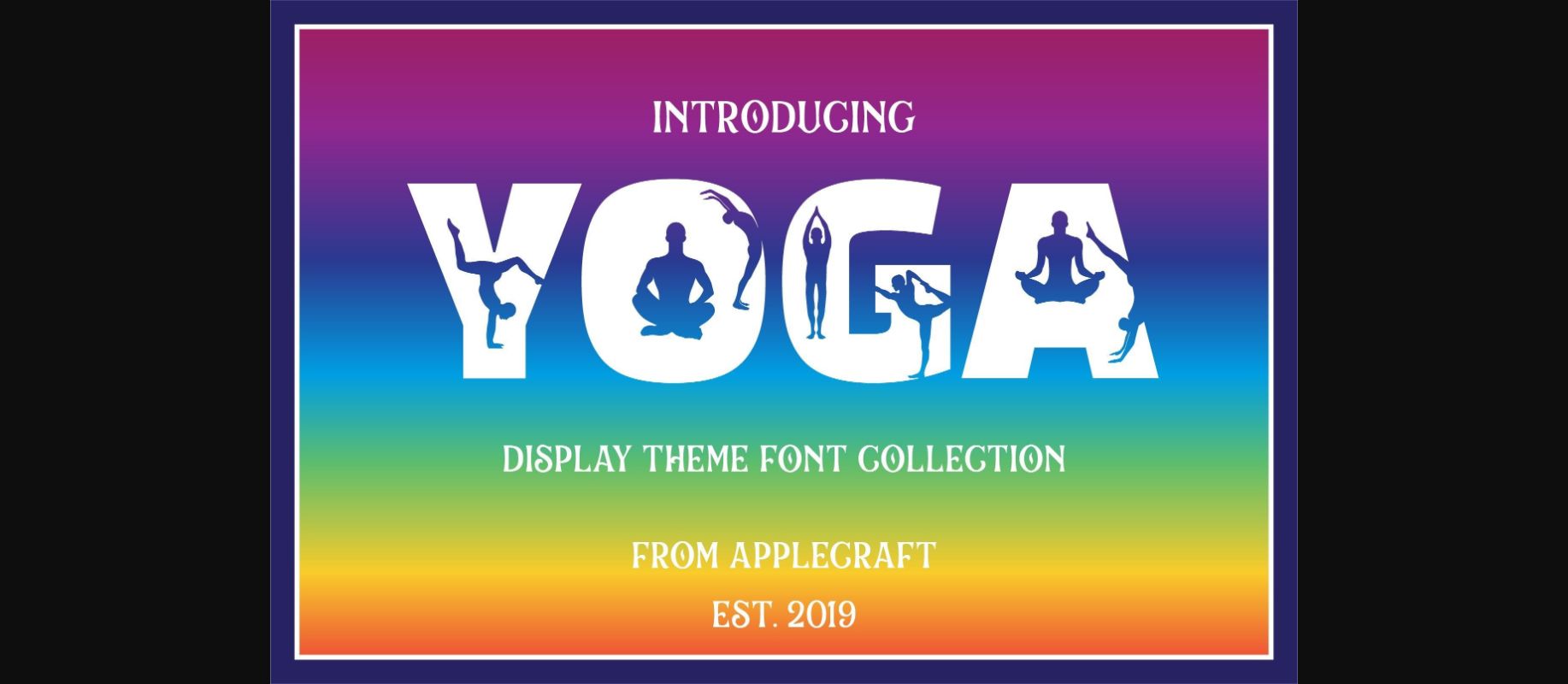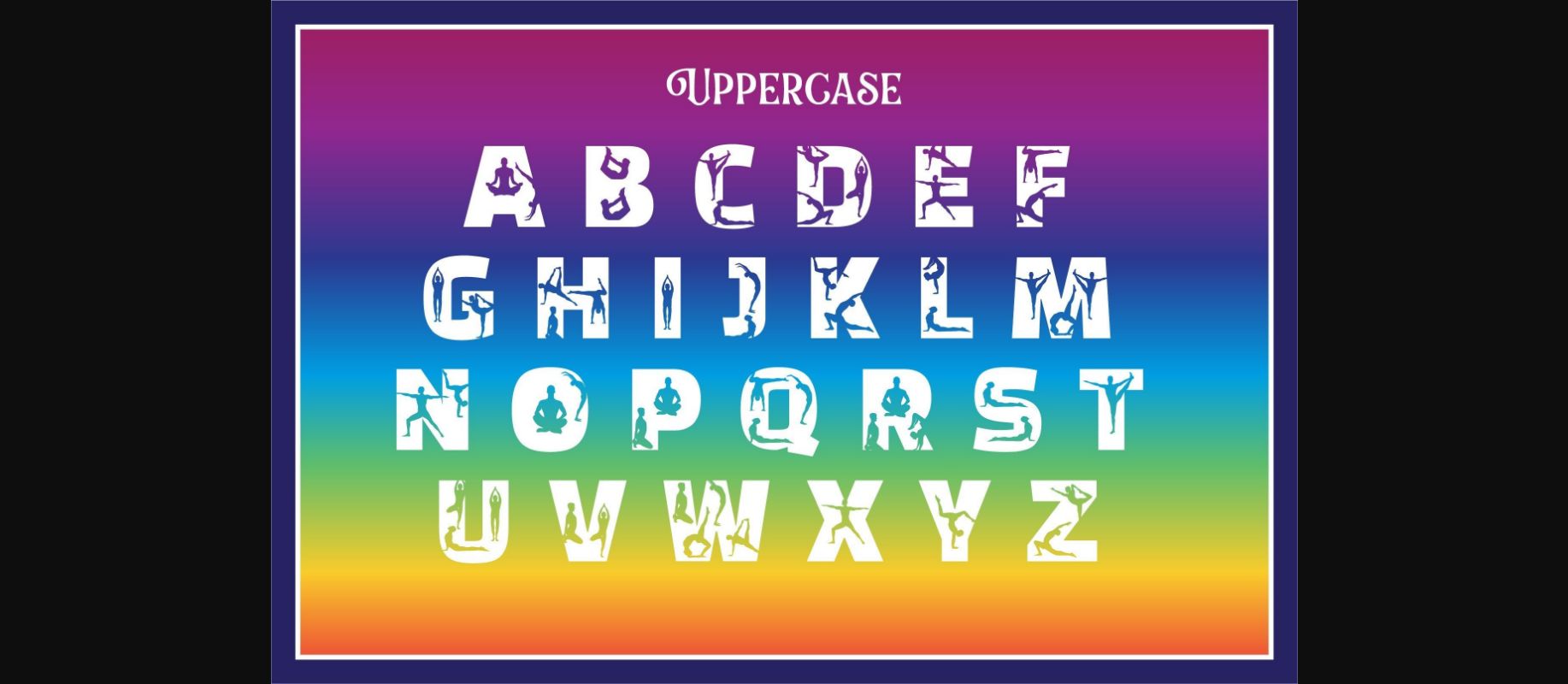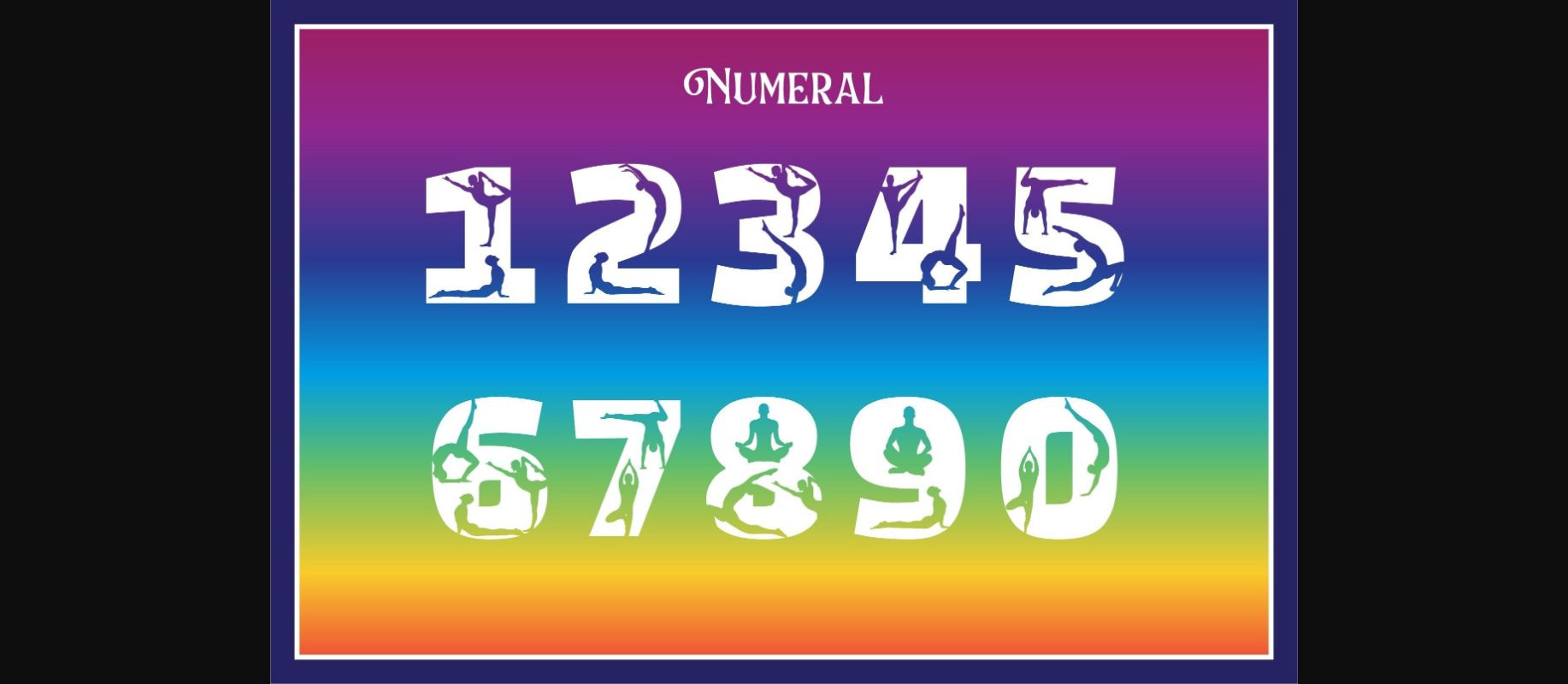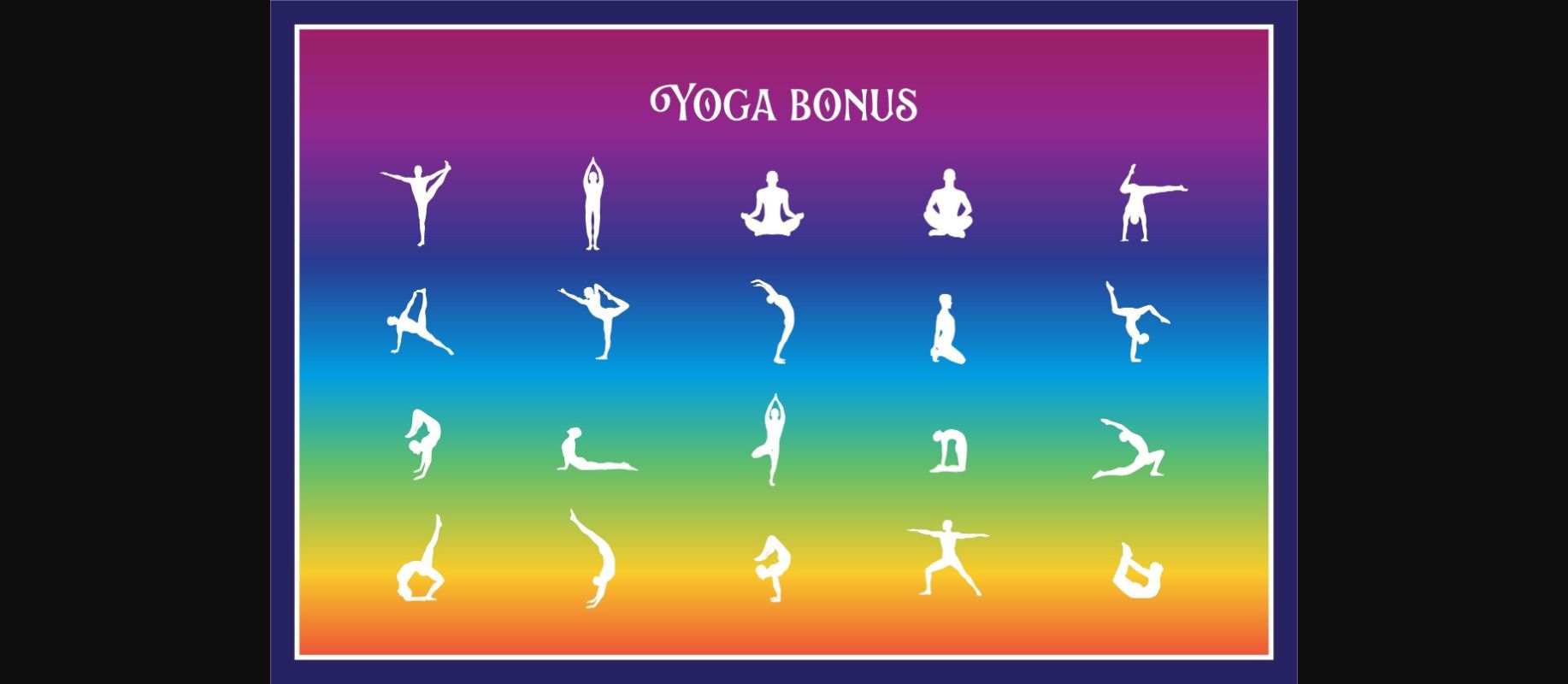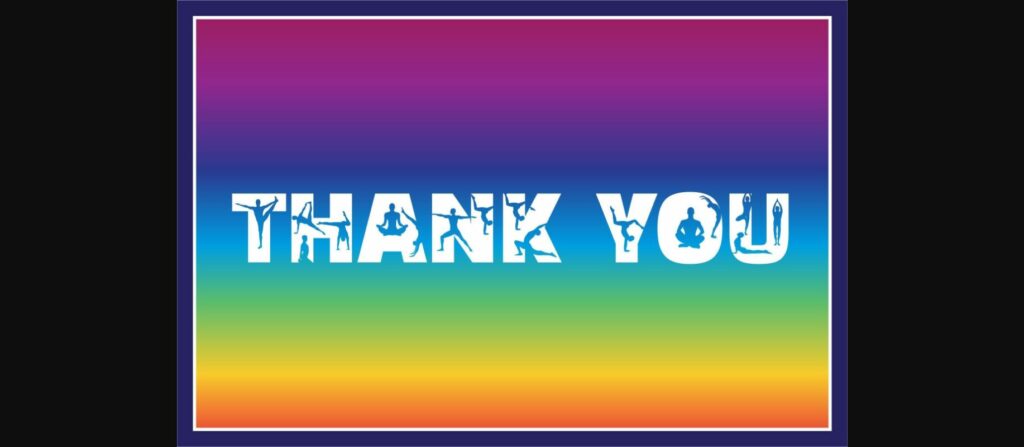
HomeDecorative FontsYoga Font Decorative Fonts Yoga Font FacebookXPinterestWhatsApp 1 of 7 ... Yoga Font Poster 2... Yoga Font Poster 3... Yoga Font Poster 4... Yoga Font Poster 5... Yoga Font Poster 6... Yoga Font Poster 7... About Yoga Font Yoga is a cool, unique, and attractive decorative font. It embodies fun and authenticity. This modern and bold vibe can easily apply to your favorite designs. DOWNLOAD NOW People also explored Magical Flower Font Lebrone Font Awkward Font Valentine Font Talking Font Thezhamoer Font Doom Carols Font Paula Eva Script Font Twilight Blossom Font 333 0 TagsYogaYoga Font Previous articleUnique Horn FontNext articleLily Split Font LEAVE A REPLY Cancel reply Comment: Please enter your comment! Name:* Please enter your name here Email:* You have entered an incorrect email address! Please enter your email address here Website: Save my name, email, and website in this browser for the next time I comment. Personal Use Free Yesstea Personal Use Free Read more about this font Covelia Personal Use Free Read more about this font Sunflower Personal Use Free Read more about this font Makcex Personal Use Free Read more about this font BLOG How to Install and Use Fonts on Windows, macOS, and Web Projects How to Install and Use Fonts on Windows, macOS, and Web Projects Fonts are a crucial part of design and branding. Whether you’re designing a... Fonts That Capture the Spirit of New York City Elegant Wedding Invitation Fonts – Handwritten & Script Fonts Free Fonts Risk: Why Free Fonts Can Be Dangerous for Designers